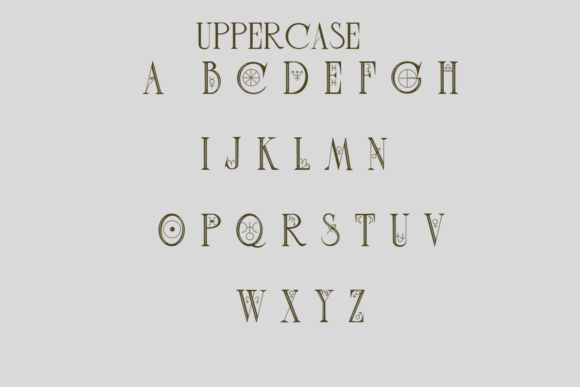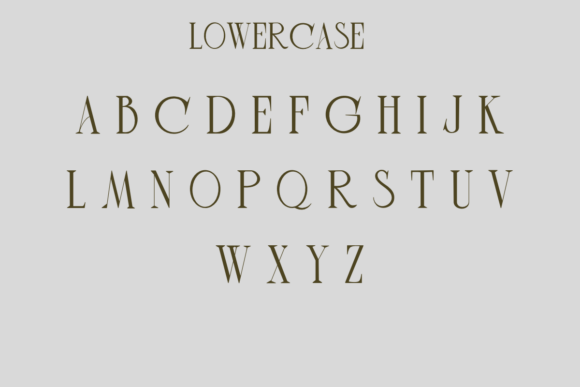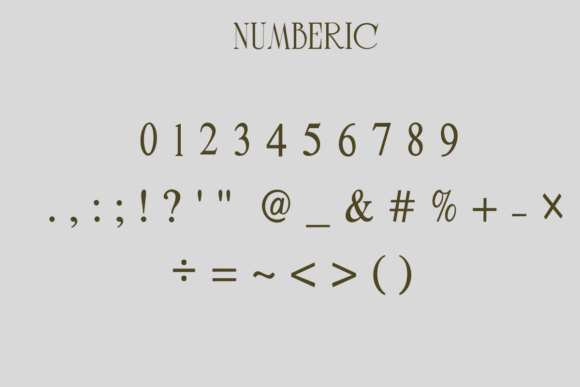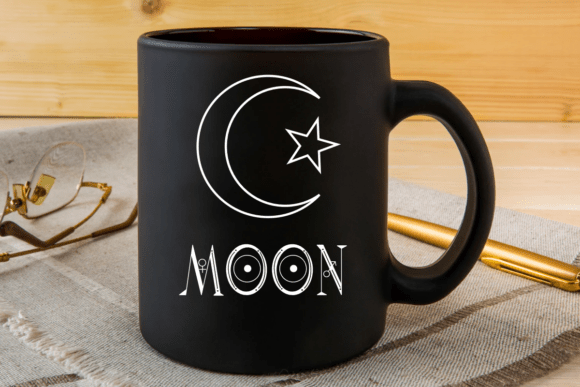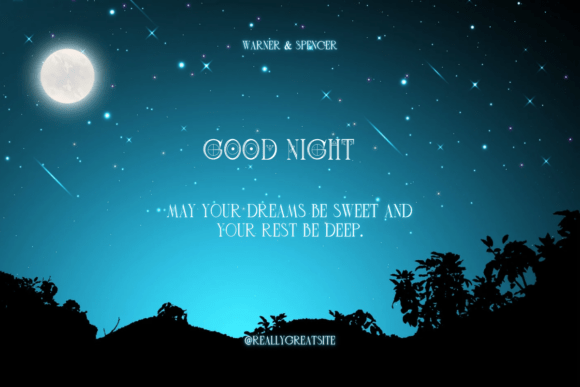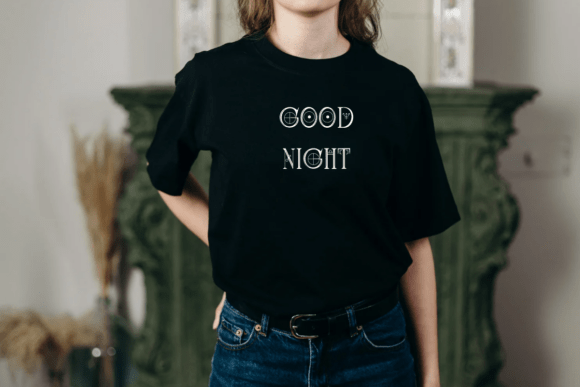
The Cosmic Connection in Typography
Have you ever been brainstorming a creative project, and suddenly, a spark of inspiration hits you? For some, it might be a breathtaking sunset, a good book, or even a conversation with a friend. For designers, it could be the discovery of a new font that captures the essence of their next project. And that’s exactly what happened when I stumbled upon the Astrology Font – a beautiful, decorative font that transports me to a world of celestial wonder.
The Astrology Font is more than just a pretty face; it’s a versatile tool for designers to add a touch of magic to their work. Whether you’re creating a heartfelt journal entry, a birthday card, or a social media post, this font can elevate your design to new heights. Its value lies in its ability to evoke emotions and create a sense of connection with your audience.
Astrology Font Key Features
- Font Family: Astrology Font offers a unique blend of celestial and mystical elements, perfect for astrological and spiritual designs.
- Font Styles: Available in various styles, including regular, bold, italic, and bold italic, to cater to different design requirements.
- Character Set: The font includes a wide range of characters, including Latin, Cyrillic, and Greek alphabets, as well as astrological symbols and glyphs.
Astrology Font Review
As a designer, I was excited to dive into the Astrology Font, but I have mixed feelings about it. Let’s break it down.
- The unique blend of celestial and mystical elements makes for an interesting and eye-catching design.
- The font’s bold and playful style is perfect for titles and headings.
- The Astrology Font comes with a variety of weights and styles, making it versatile for different design applications.
- The font may be too ornate for body text, making it difficult to read at larger font sizes.
- The design may not be suitable for formal or professional projects, due to its whimsical nature.
- The font lacks consistency in its letterforms, which can make it challenging to use in certain design contexts.
The Astrology Font is a fun and creative choice for designers who want to add a touch of mysticism to their projects. While it has some limitations, it’s perfect for titles, headings, and other design elements where a bold and playful style is desired. However, it’s not the best choice for body text or formal projects. With some careful consideration and application, the Astrology Font can be a great addition to any designer’s toolkit.
The Astrology Font is ideal for:
- Creating astrology-themed posters and infographics.
- Designing astrology-inspired business cards and brochures.
- Adding a touch of mysticism to social media graphics and websites.